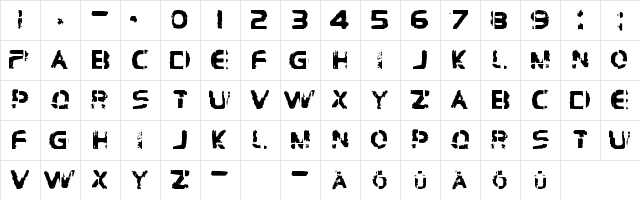
BD Brockelmann Regular Free Font
BD Brockelmann Regular
Design Context for BD Brockelmann
BD Brockelmann is a composed and adaptable typeface that performs quietly and consistently across a wide range of design contexts. Its bold stroke weight gives it real presence on the page.